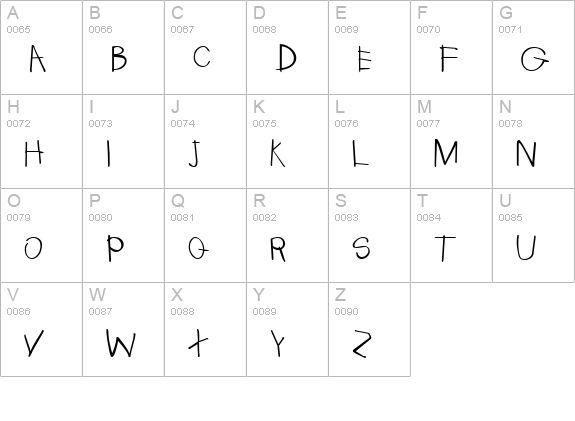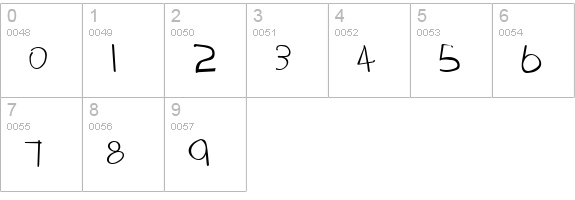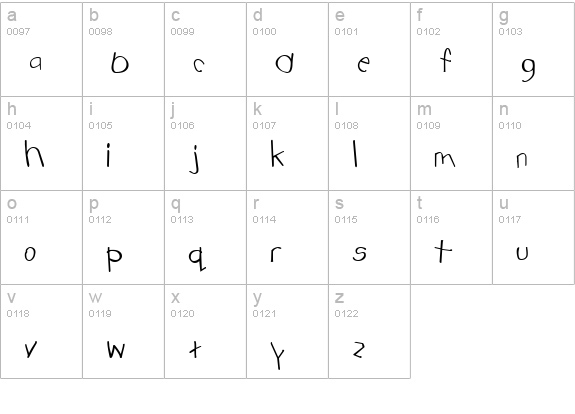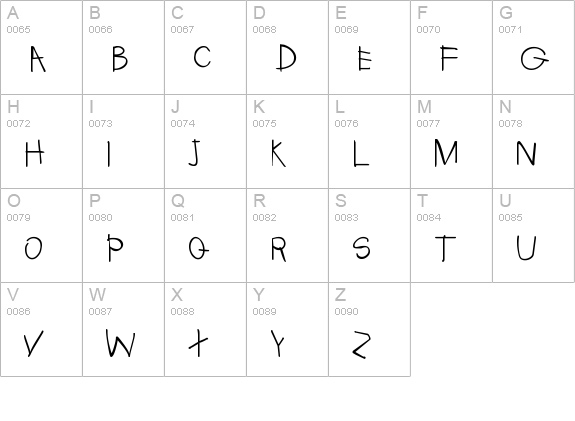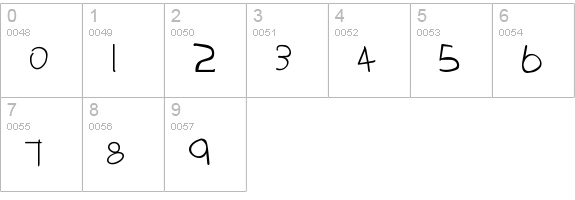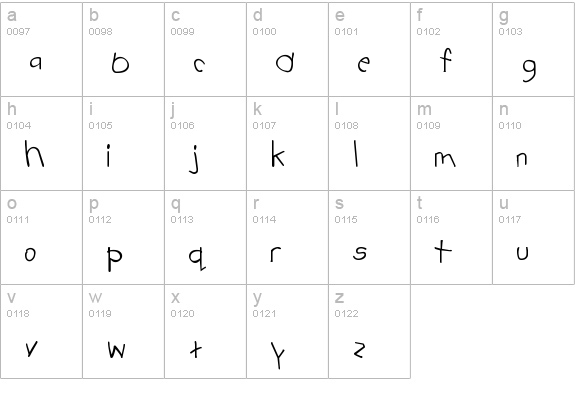
Introducing the exquisite Donald font, a versatile typeface that exudes elegance and sophistication. This stylish font is perfect for adding a touch of class to your projects, whether it's for branding, advertising, invitations, or any other creative endeavor. The Donald font features a unique blend of modern and classic elements, making it suitable for a wide range of design applications. And the best part? Donald font is completely free for personal and commercial use. You can easily download this stunning font at FontsMarket.com, your go-to source for high-quality fonts and design resources. Don't miss out on the opportunity to enhance your projects with the timeless beauty of the Donald font. Download it today and elevate your designs to the next level!